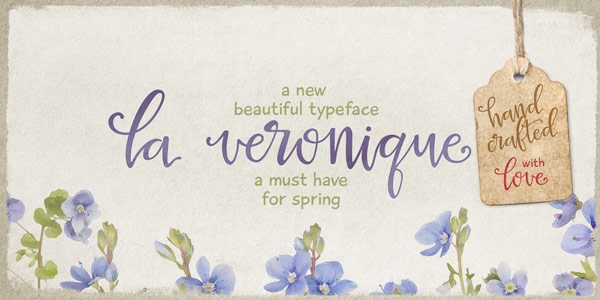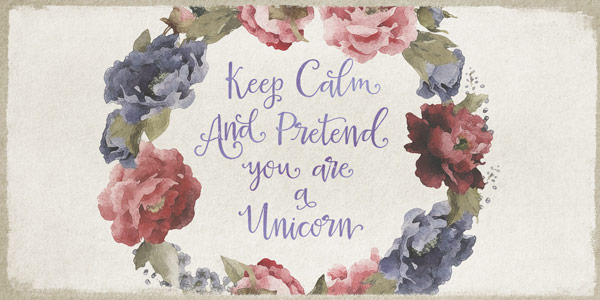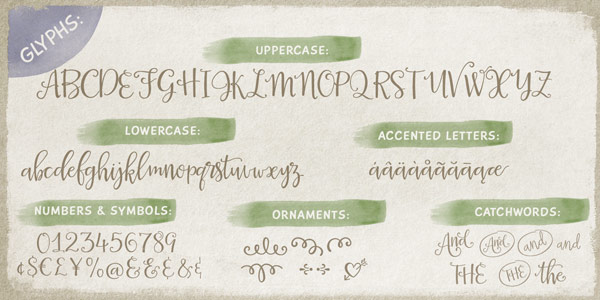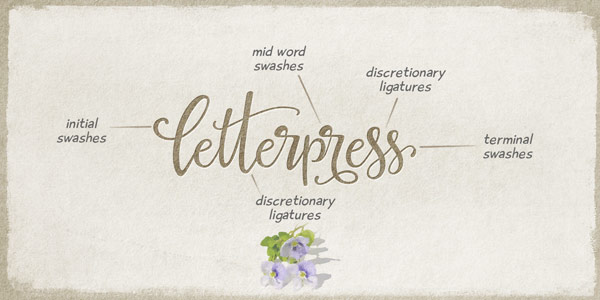
La Veronique font, a handwritten typeface created by Elena Genova of foundry My Creative Land.
Elena Genova, a type designer from United Kingdom has created La Veronique in early 2015. With the upcoming spring and sunshine in mind, Elena Genova has created a beautifully handwritten typeface. The font is equipped with numerous alternates, swashes, ligatures, and other OpenType features.
La Veronique works perfectly for wedding or birthday invitations, thank you cards, quotes, and all kinds of festive letterings.